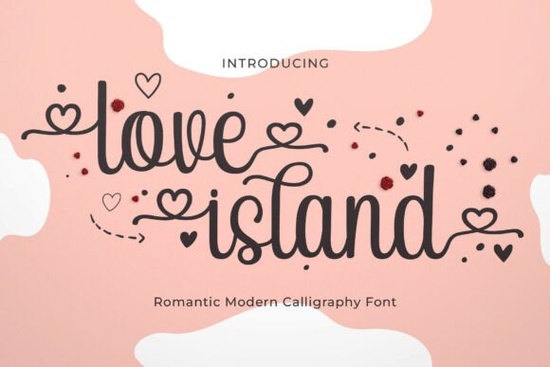
If you're searching for a modern calligraphy font that looks genuinely hand-drawn, the Love Islan typeface deserves a spot on your shortlist. It combines smooth, fluid strokes with balanced curves, giving any project a polished yet personal feel. Whether you design wedding stationery, sell print-on-demand products, or craft home décor pieces, this script font fits right into your workflow without a steep learning curve.
What Makes This Font Different from Other Script Typefaces?
There's no shortage of calligraphy fonts online, but many of them fall into two camps: overly decorative and hard to read, or too plain and forgettable. Love Islan sits comfortably in the middle. Its letterforms are elegant without being fussy, and the natural flow between characters keeps it legible even at smaller sizes.
For crafters who use Cricut Design Space, Silhouette Studio, or Brother ScanNCut, this font cuts cleanly. The smooth curves mean fewer jagged edges when working with vinyl, which saves time weeding and produces sharper results on decals, t-shirts, and tote bags.
If you've enjoyed working with other elegant scripts like Magnolia Calligraphy, Love Islan offers a similar sophistication but with a slightly more relaxed, contemporary feel.
What Types of Projects Does It Work Best For?
This font is versatile enough for a wide range of creative work. Here are some of the most popular uses among designers and crafters:
- Wedding invitations and RSVP cards The romantic, flowing style is a natural fit for bridal stationery, menus, and seating charts.
- Wall art and home décor signs Use it for laser-cut acrylic lettering, wooden signs, or personalized gallery prints.
- Social media graphics and branding It works well for quote posts, logo accents, and luxury packaging designs.
- Greeting cards The hand-lettered quality adds warmth to inspirational quote posters and seasonal cards.
- Print-on-demand products Create standout designs for mugs, apparel, and accessories that feel custom-made.
For DIYers and small business owners, the font is fully accessible and works at every skill level. You don't need advanced design experience to get professional-looking results.
How Does It Pair with Other Fonts?
A good script font often works best when paired with a clean sans-serif or a complementary display typeface. Love Islan's romantic curves pair nicely with:
- A simple geometric sans-serif for body text and descriptions
- A bold slab serif for contrast on headings and subheadings
- Another script from a different style family for layered, multi-font designs
If you like a more playful handwritten look, the Funny Dreams typeface adds a lighthearted touch that contrasts well with Love Islan's elegance. For something with deeper calligraphy roots, Faither is another strong option worth exploring alongside it.
And if you prefer a font with more structured, rouleur-inspired character, check out Aaksaraan Rouleur it brings a different kind of personality to branding and packaging work.
What Should You Check Before Buying?
- Confirm the font includes all the characters and glyphs you need for your specific projects
- Test it in your preferred design software Cricut, Silhouette, Adobe Illustrator, Canva, or whatever you use daily
- Check that the license covers your intended use, whether personal, commercial, or both
- Try pairing it with a clean sans-serif to see how it looks in real layouts before finalizing